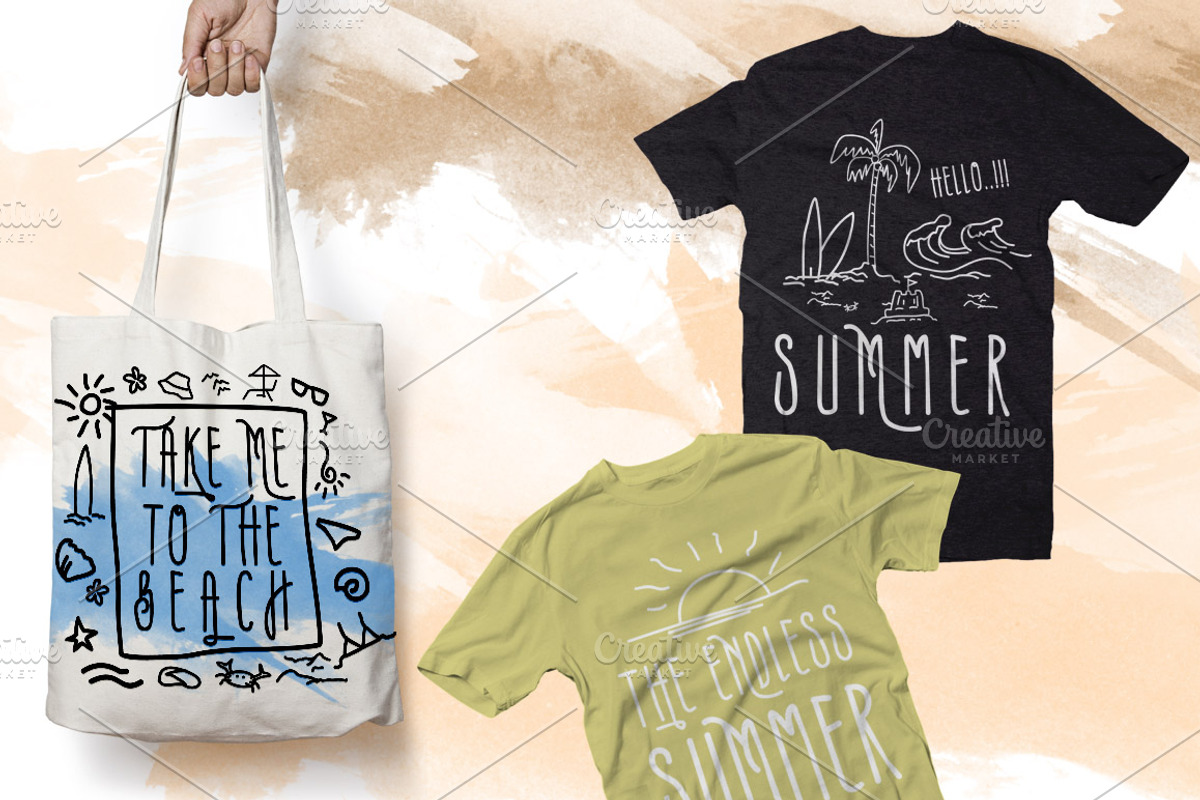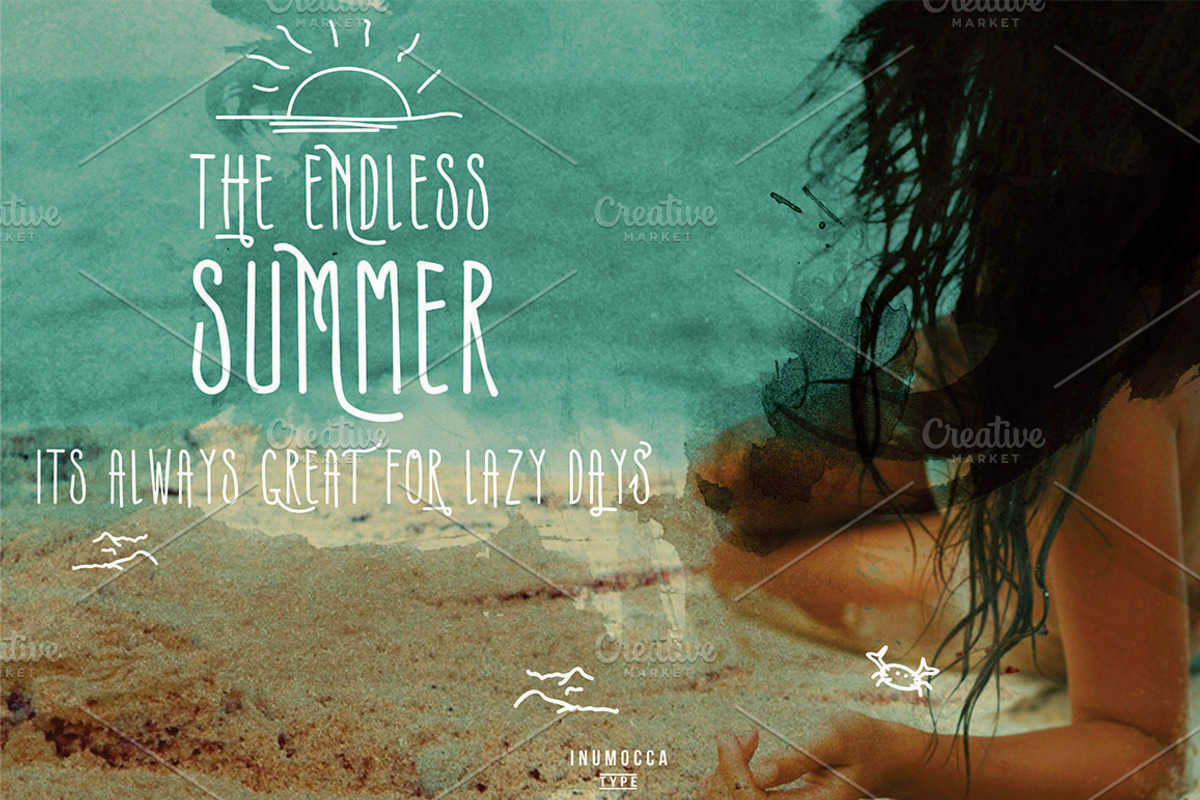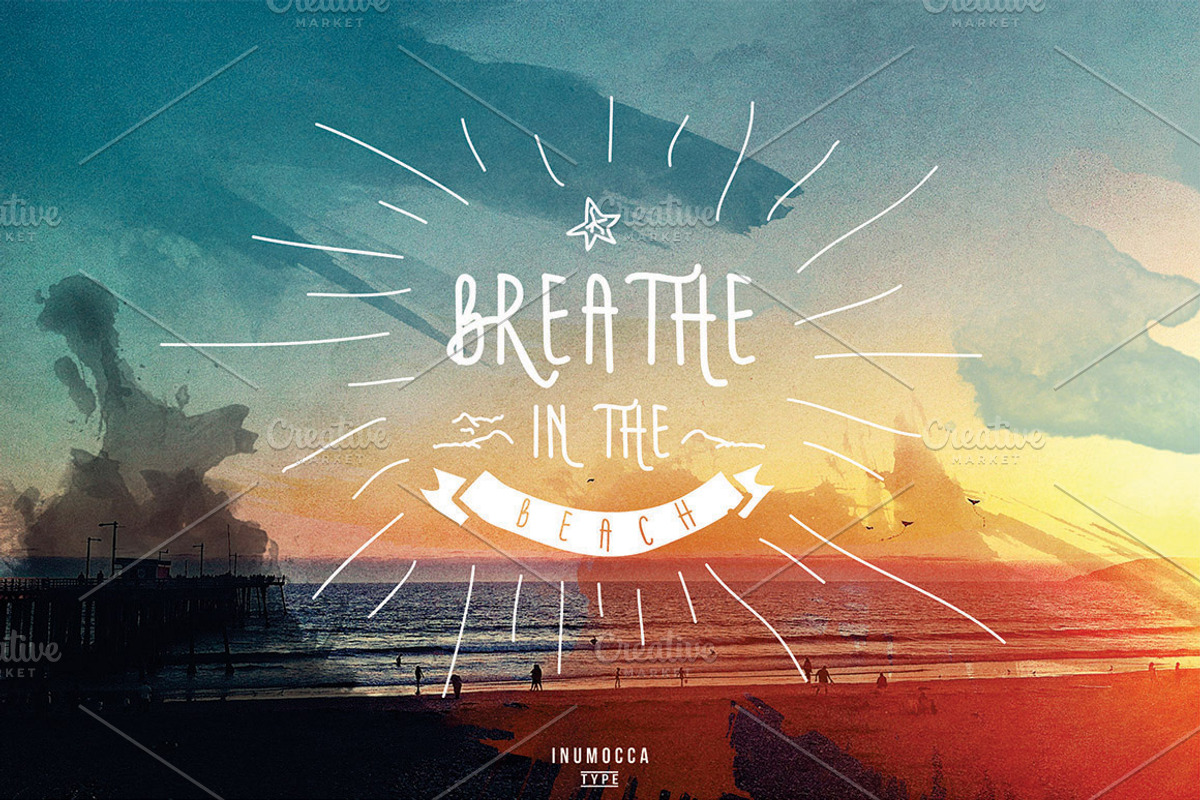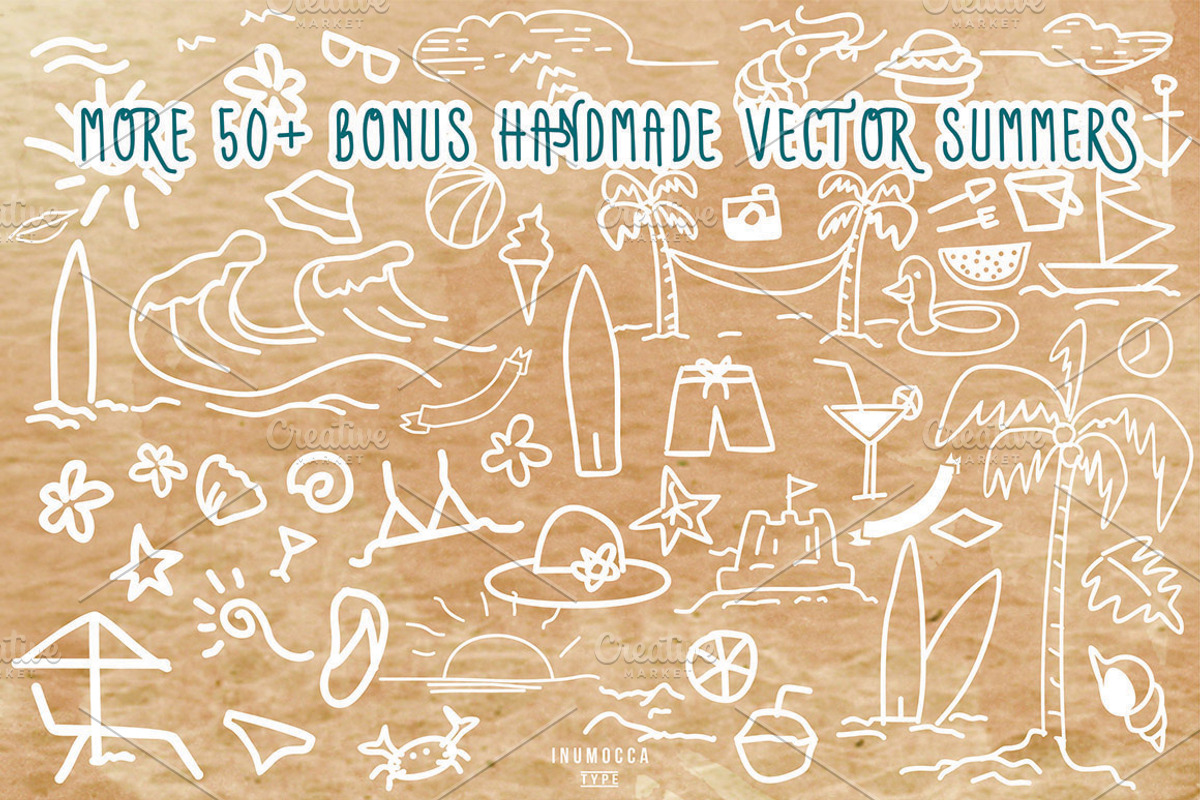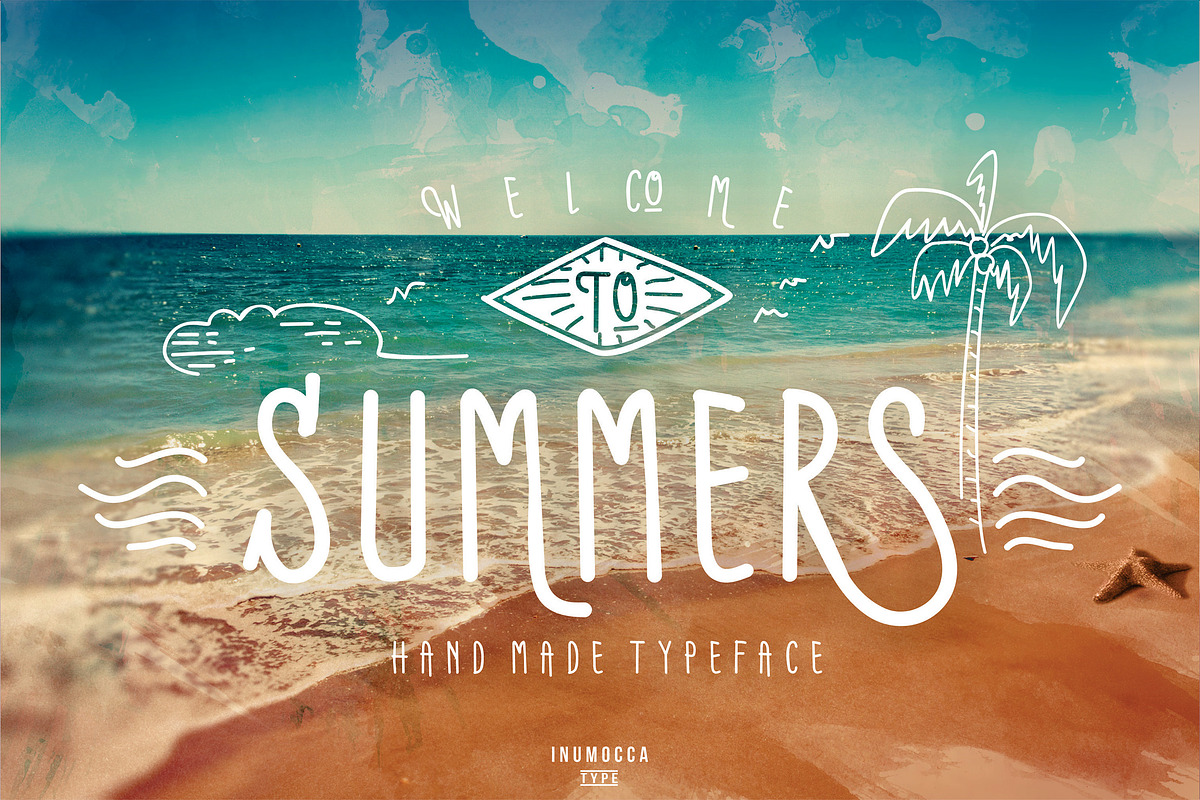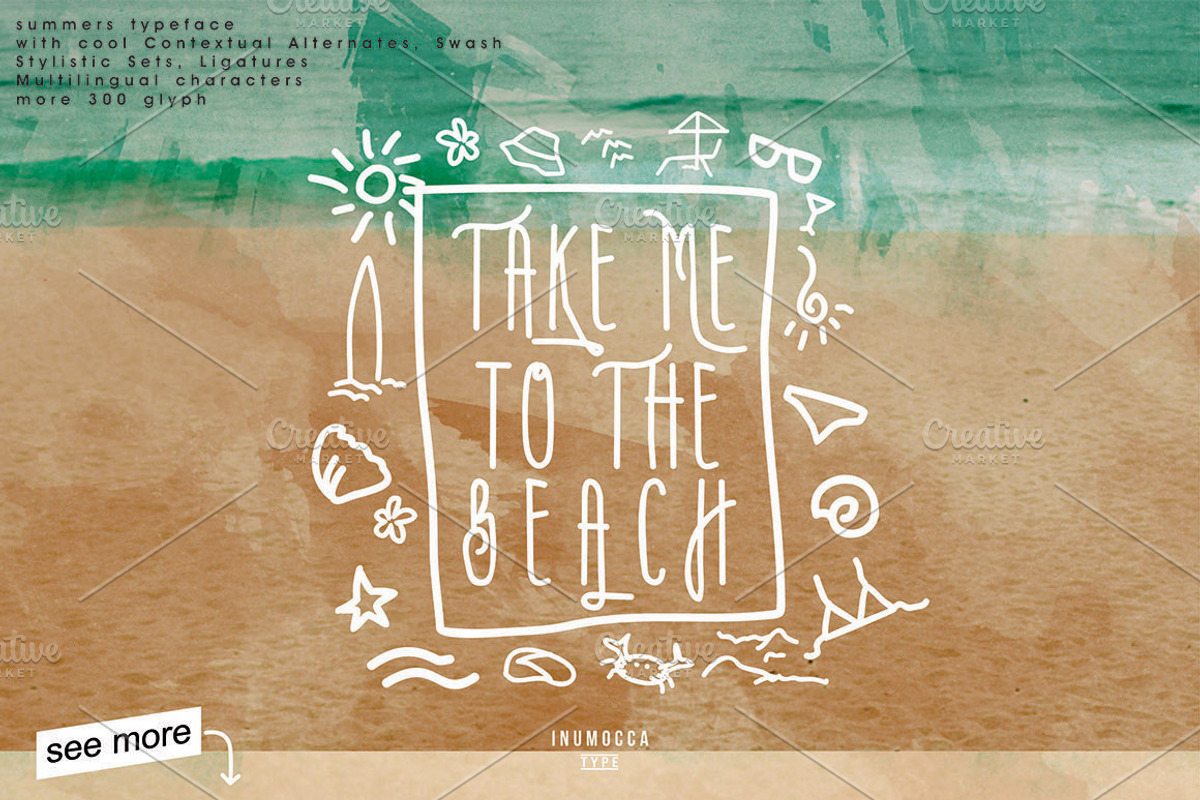
Summers Typeface + BONUS vector
Summers Typeface + BONUS vector by inumoccatype is a font selected for branding, posters, packaging, typography.
- Summers typeface its a modern and classic handmade typeface, really beautiful to typography, make your quotes, your brand, Logos, catalog ,
Why Summers Typeface + BONUS vector is worth a look
Summers Typeface + BONUS vector by inumoccatype fits naturally into Branding, posters, packaging, typography.